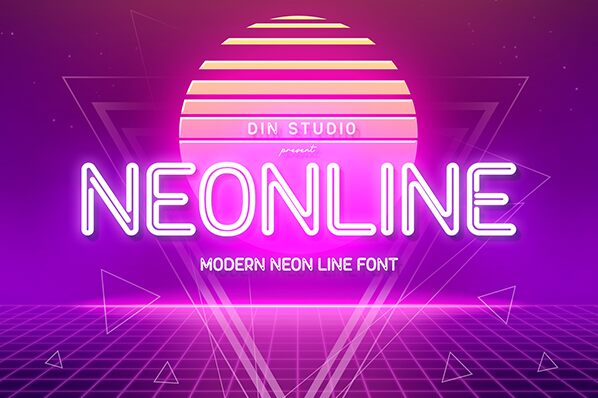
Neonline
Neonline captivates with its vibrant and striking design, exuding a modern, electrifying presence. The font’s bold contours and dynamic shapes create an engaging visual rhythm, drawing attention effortlessly. Its substantial profile adds a sense of gravity, while the smooth curves lend a touch of elegance.
Ideal for eye-catching headlines or branding that demands immediate focus, Neonline thrives in contexts where creativity meets clarity-think energetic advertisements, lively event posters, or contemporary web design. This font not only speaks volumes but also sets the tone for innovative communication. Embrace Neonline for projects that require both flair and impact!
Din Studio Type Foundry